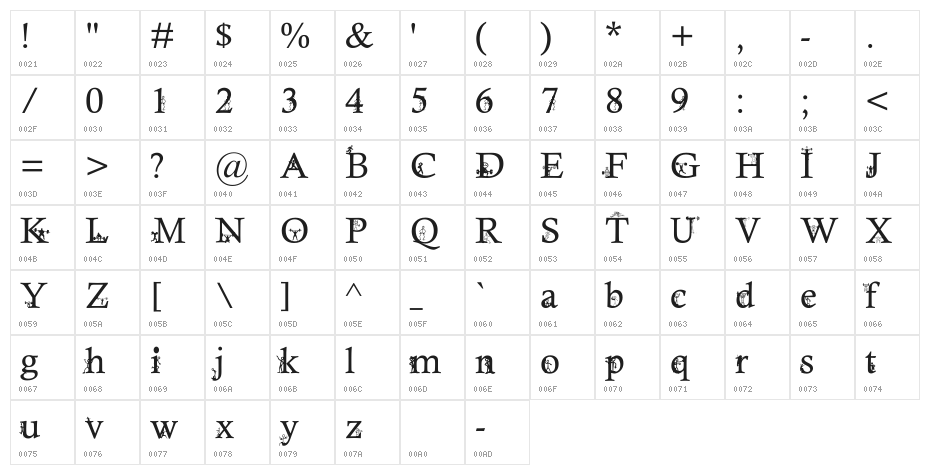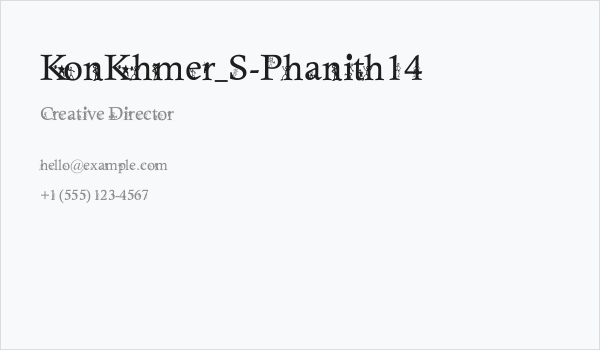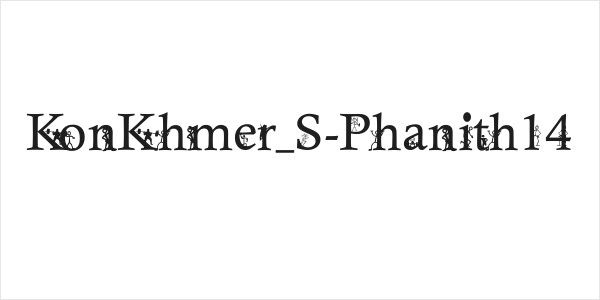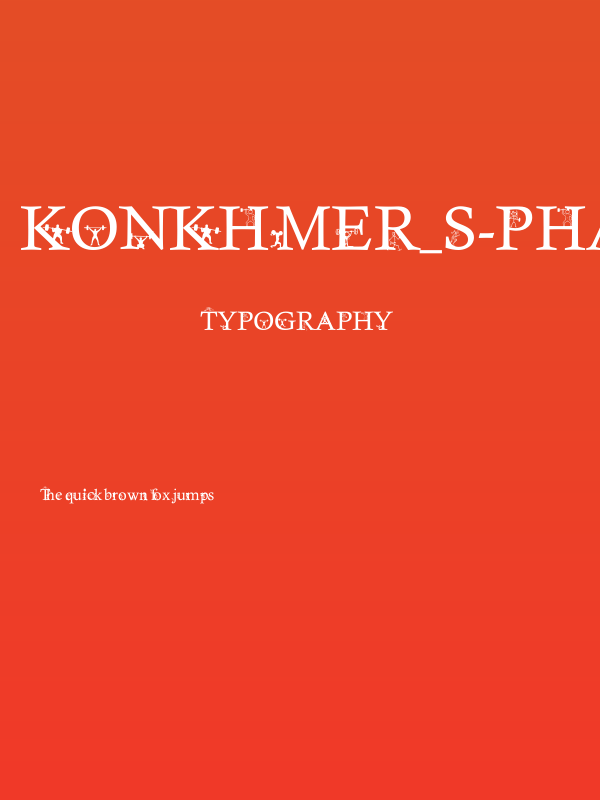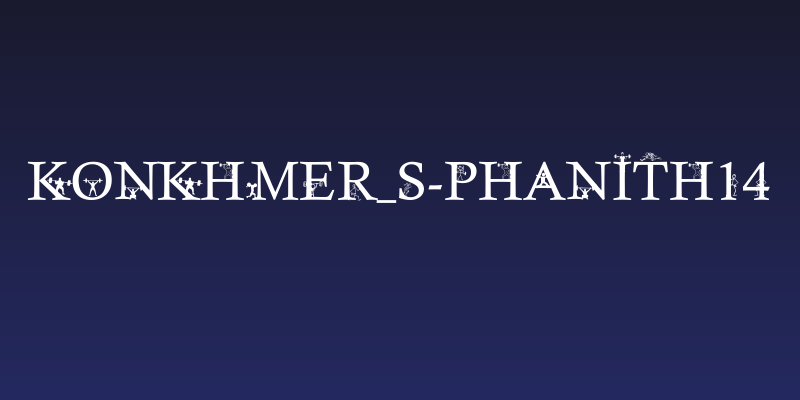
KonKhmer_S-Phanith14 Font
KonKhmer_S-Phanith14 Description
This font is a unique blend of traditional serif elements with playful, decorative features. Each character is adorned with small, whimsical stick figures that interact with the letterforms, adding a lively and humorous touch. The serif style provides a classic and formal base, while the added illustrations create a dynamic and engaging visual experience. The uppercase and lowercase letters maintain a consistent style, with moderate contrast in stroke thickness, ensuring readability. Numbers and special characters are also included, each with its own playful embellishment, making this font suitable for creative and informal projects.
| Proposed Projects | Ideal for children's books, playful branding, creative posters, and any project requiring a whimsical touch. |